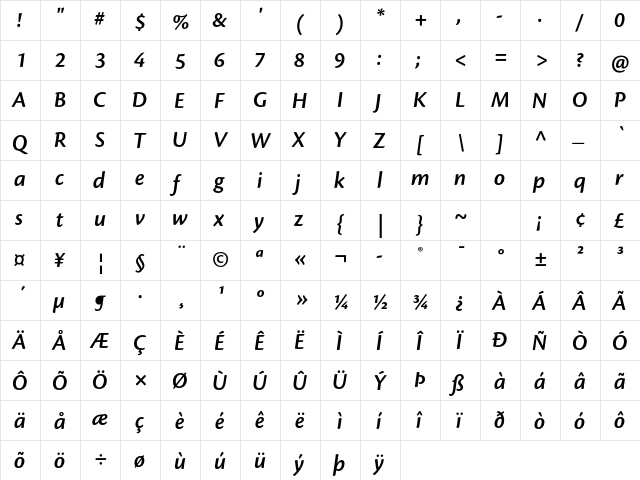
Cronos Pro Semibold Subhead Italic
| Designer | Robert Slimbach |
Design Context for Cronos Pro Typeface
Cronos Pro takes a measured approach to typography — its balanced proportions and neutral character make it a reliable workhorse for both digital and print work. The slanted form adds forward momentum and visual energy. The heavy weight commands attention and anchors typographic hierarchies.
Pro Tip: Use Cronos Pro for emphasis, pull quotes, and subheadings where its slanted energy can add rhythm to the layout.